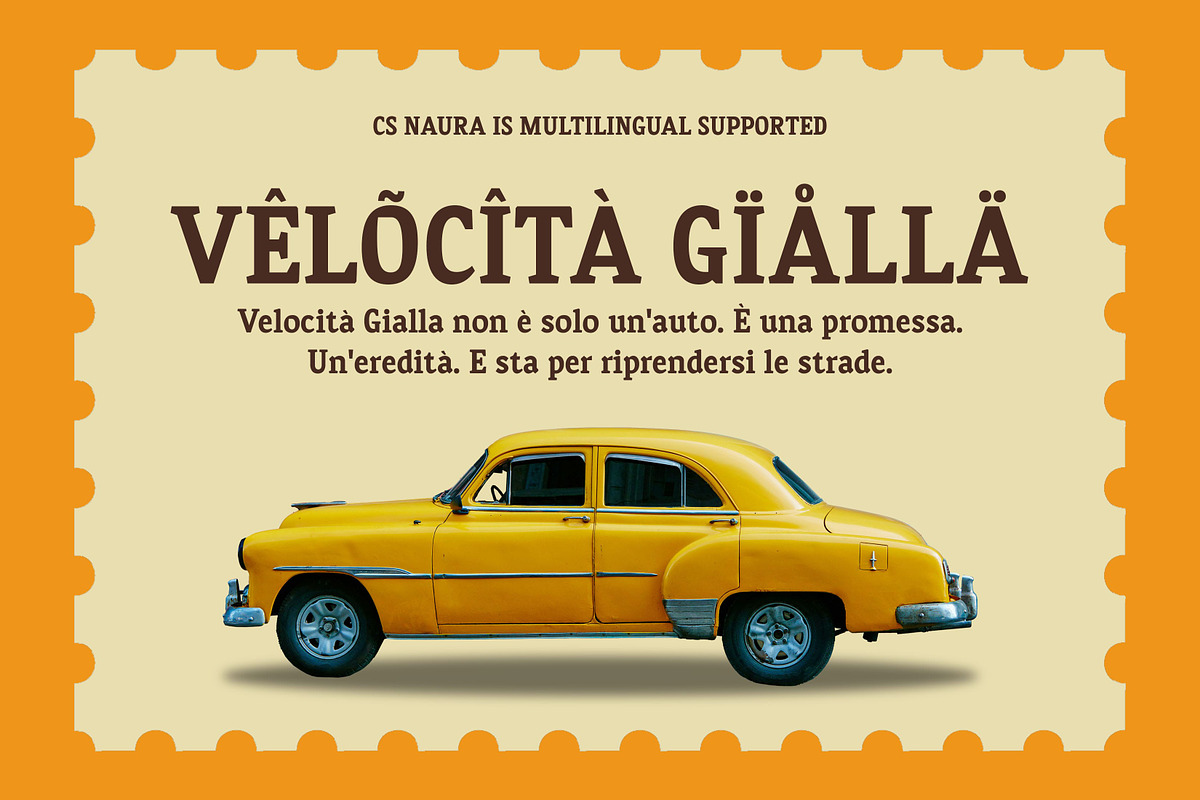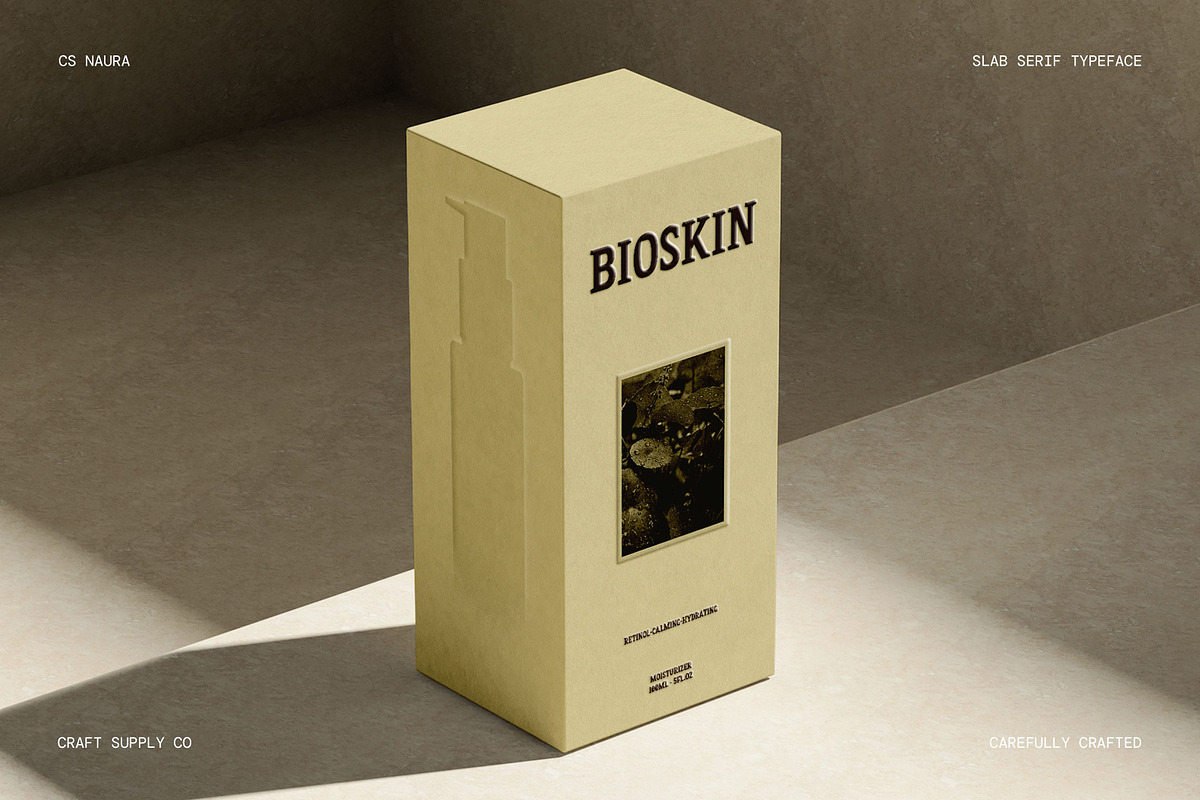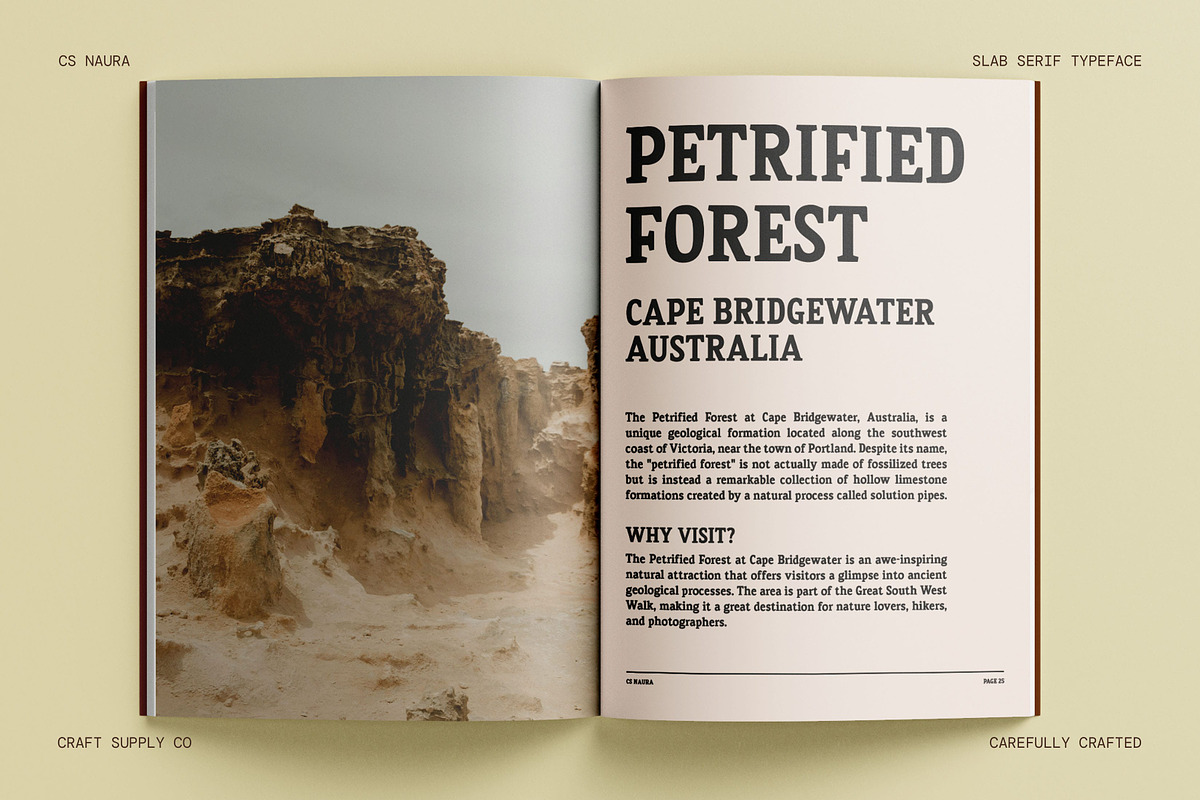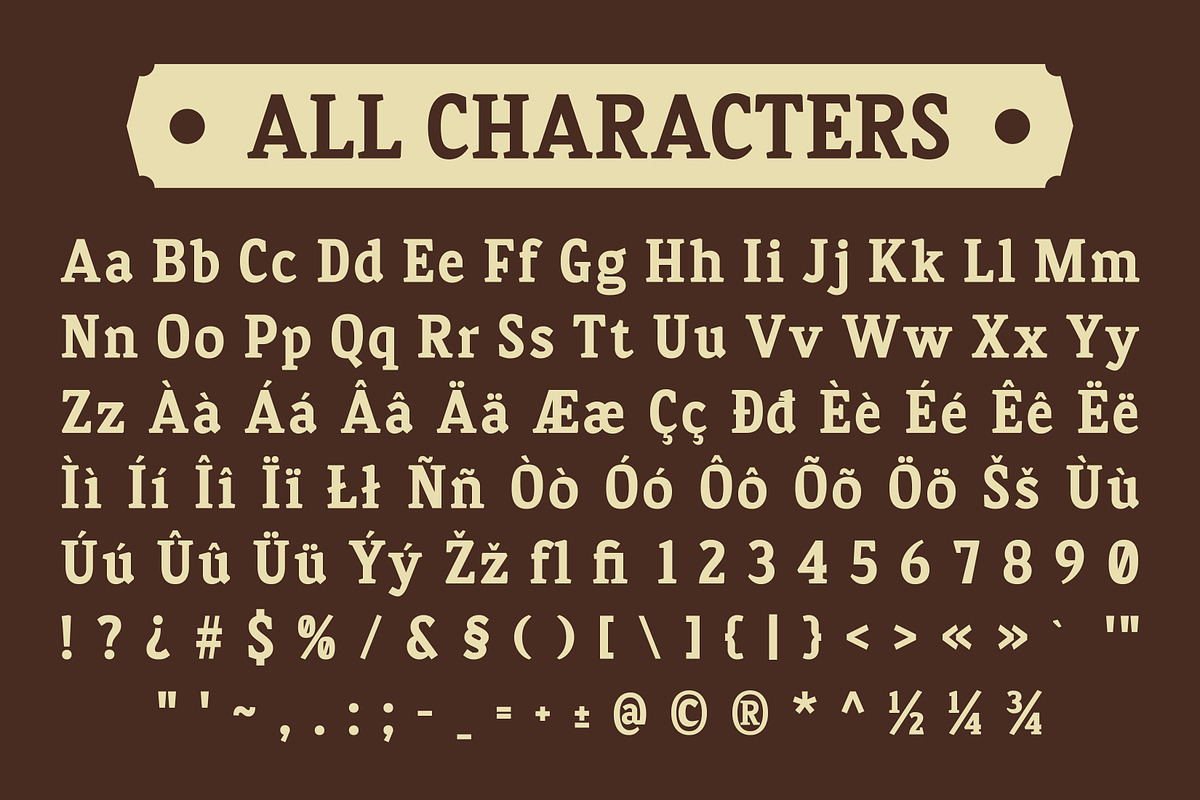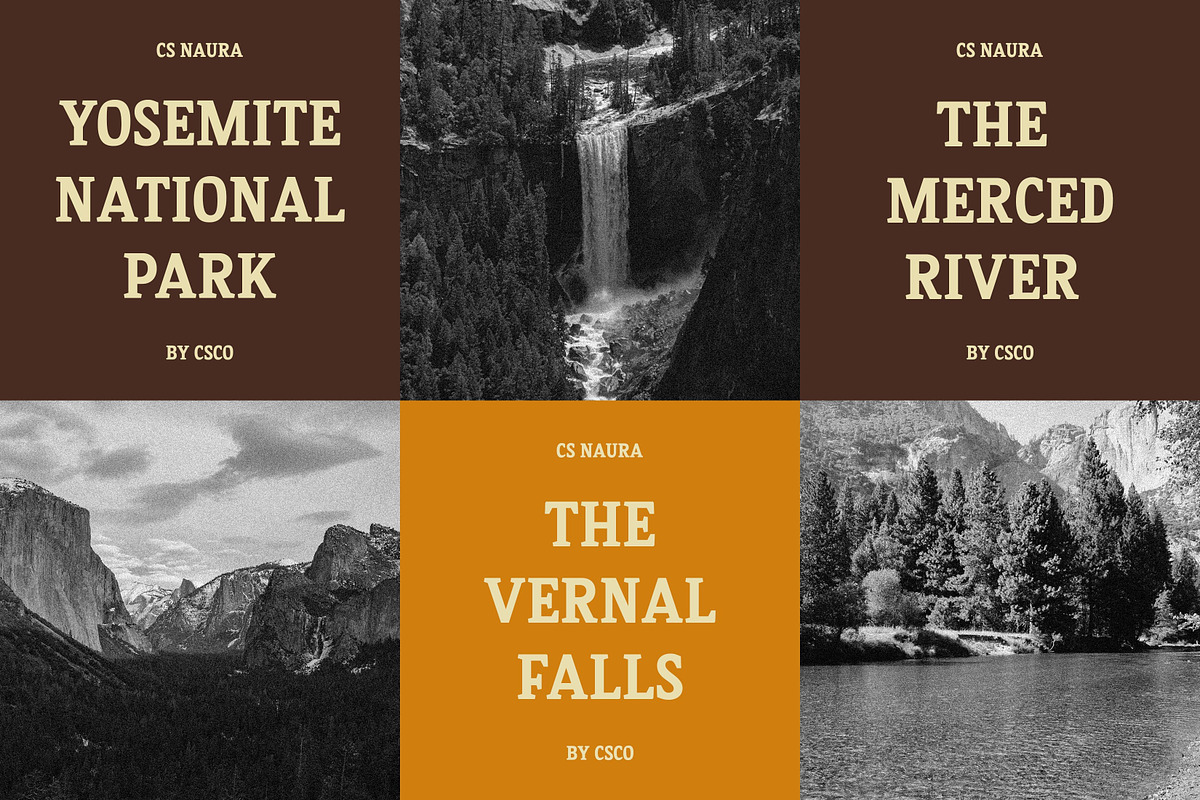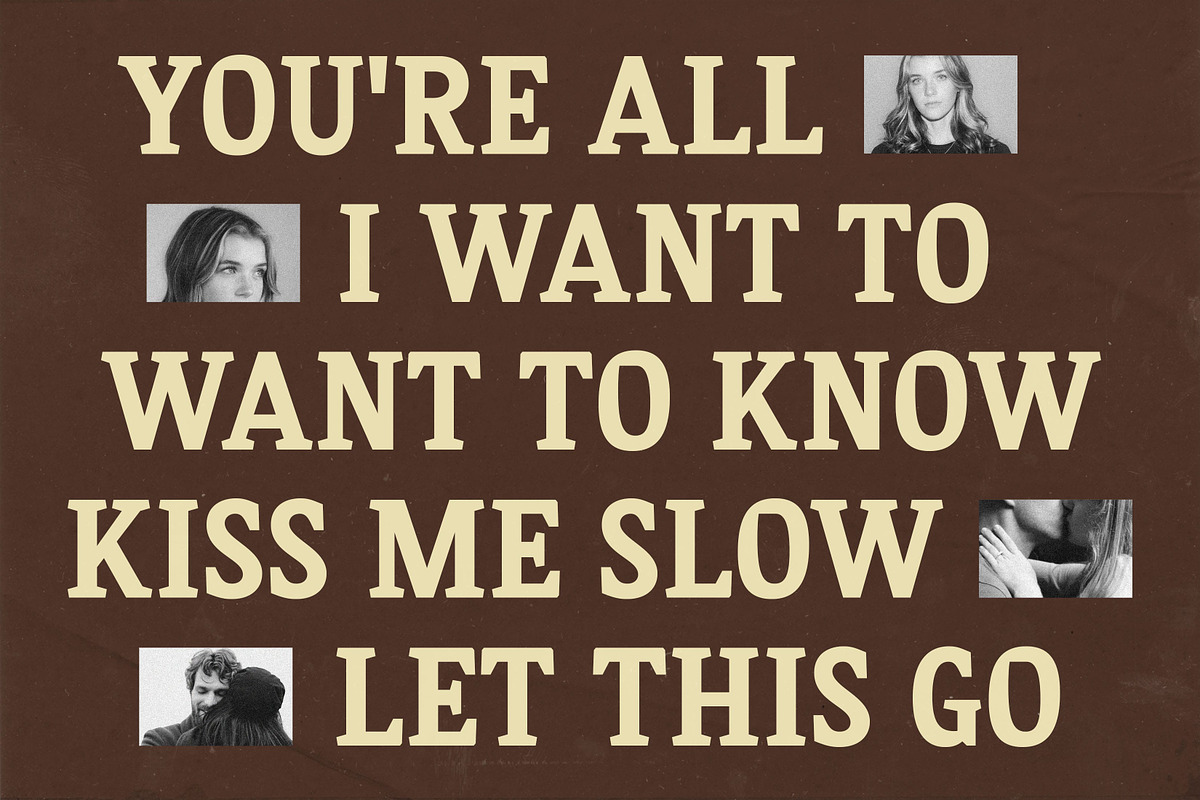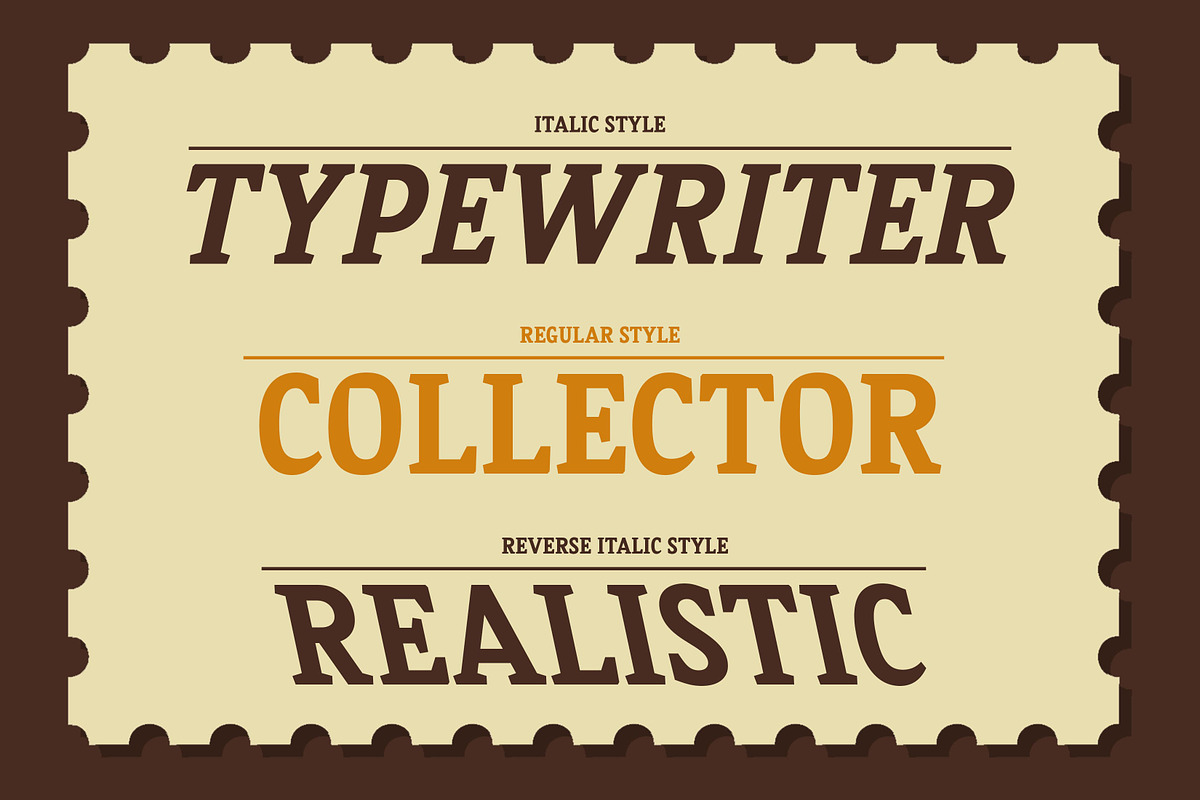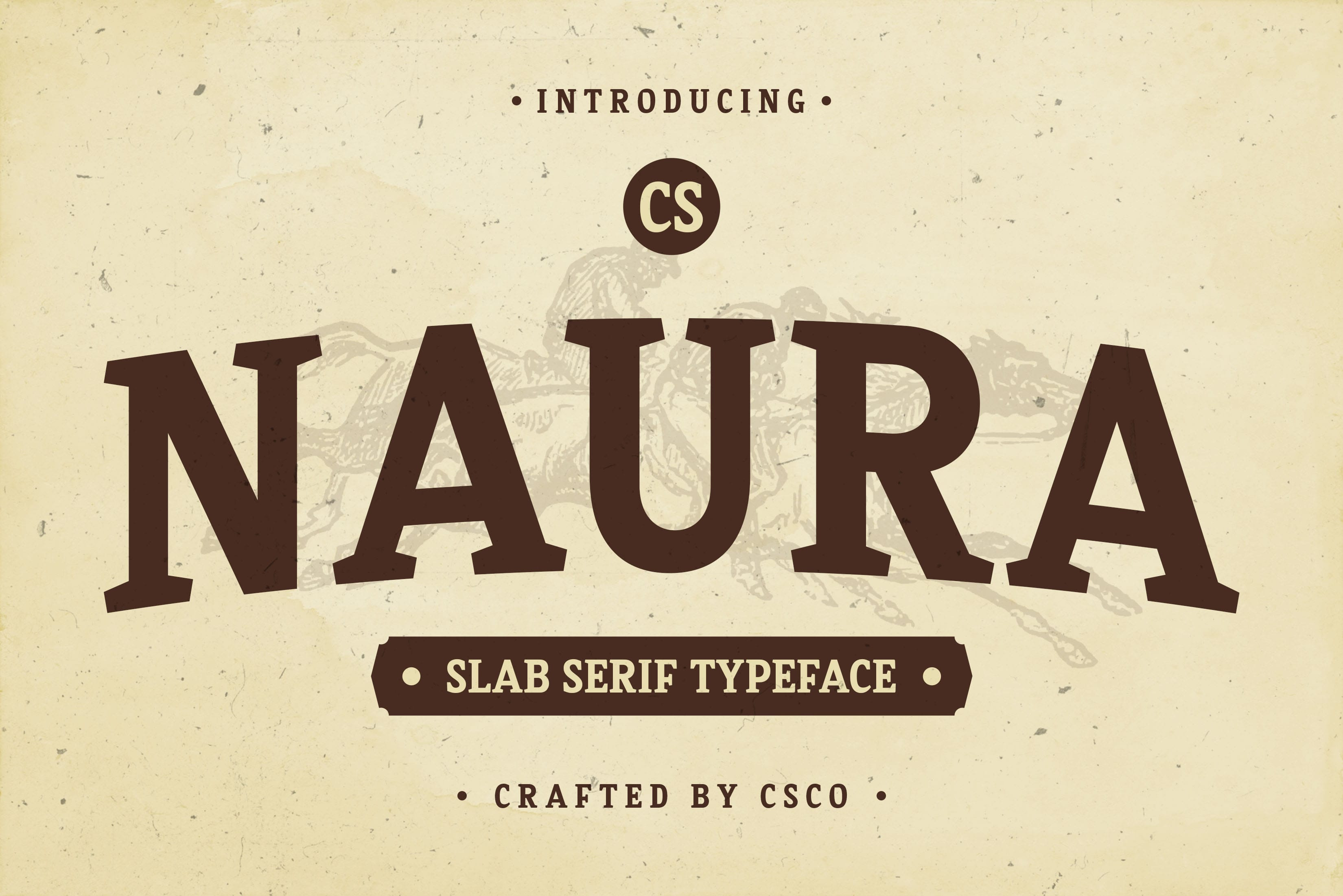
CS Naura – Bold Font
CS Naura – Bold Retro Slab Serif Font
A Sturdy and Timeless Classic CS Naura is a retro slab serif font with a bold, structured design that commands attention. Its square serifs and strong letterforms create a solid and reliable presence, making it ideal for projects that require a vintage yet authoritative aesthetic. Whether used for posters, branding, or signage, this font delivers a striking and nostalgic impact.
Bold and Eye-Catching Appeal Designed with thick strokes and squared serifs, CS Naura offers a powerful and confident look. Its high legibility and strong presence make it perfect for headlines, advertising, and packaging, ensuring that your message stands out with a classic yet bold charm.
Perfect for Retro and Vintage Designs CS Naura embodies the essence of old-school typography, making it a great choice for vintage branding, signage, and retro-inspired graphics. Its structured form adds a touch of nostalgia, ideal for designs that seek to capture the spirit of classic print advertisements and traditional craftsmanship.
Versatile for Various Creative Applications From branding and posters to editorial layouts and product packaging, CS Naura seamlessly adapts to different design needs. Its timeless yet bold style ensures a strong visual impact, making it a go-to font for designers who want to balance classic charm with modern usability.